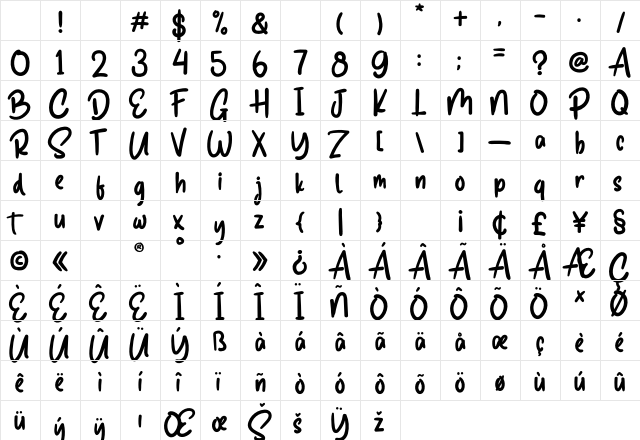
Complete Soubath Ambyar Regular glyph index. Displaying only characters natively supported by Soubath Ambyar Regular font.
Soubath Ambyar is a composed and adaptable typeface that performs quietly and consistently across a wide range of design contexts.